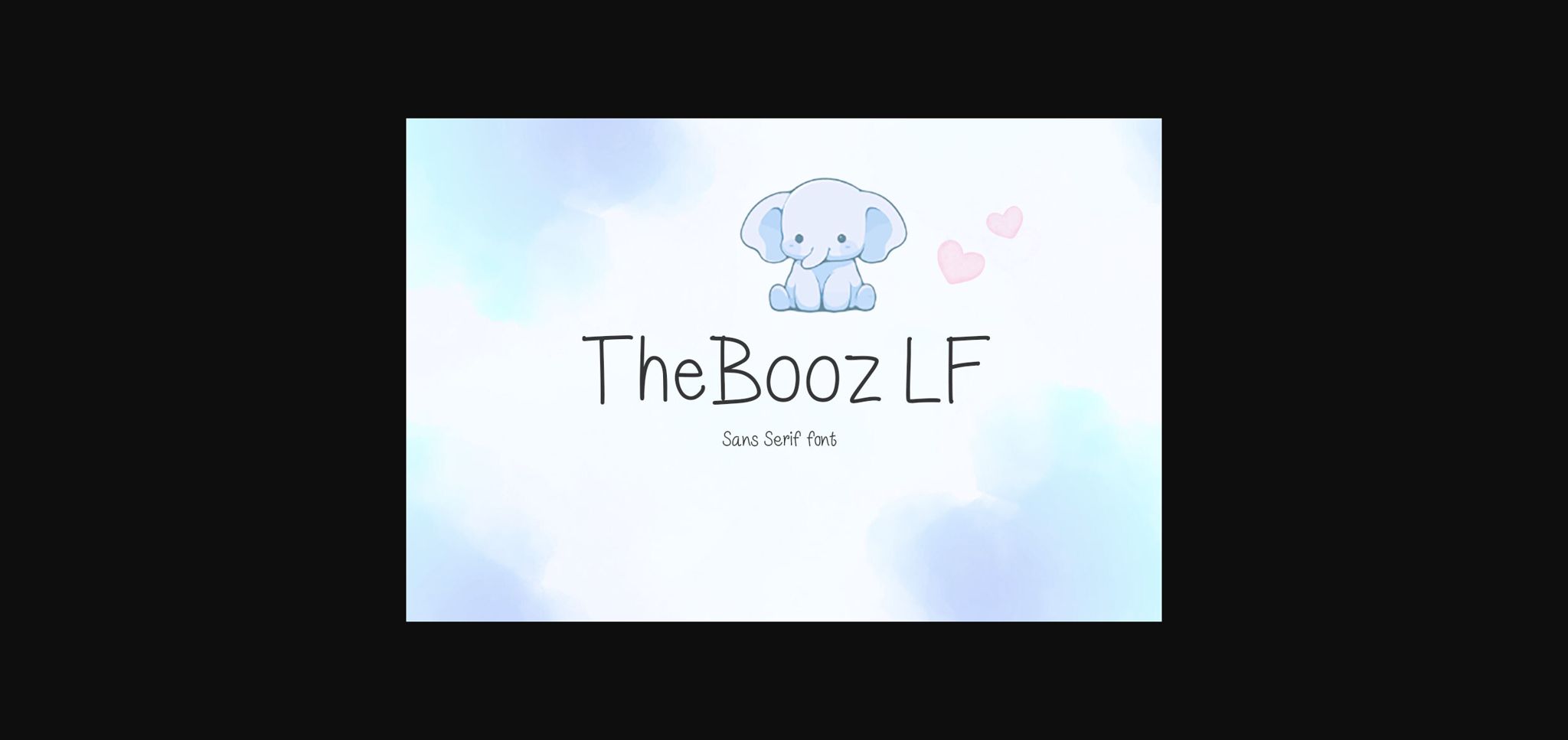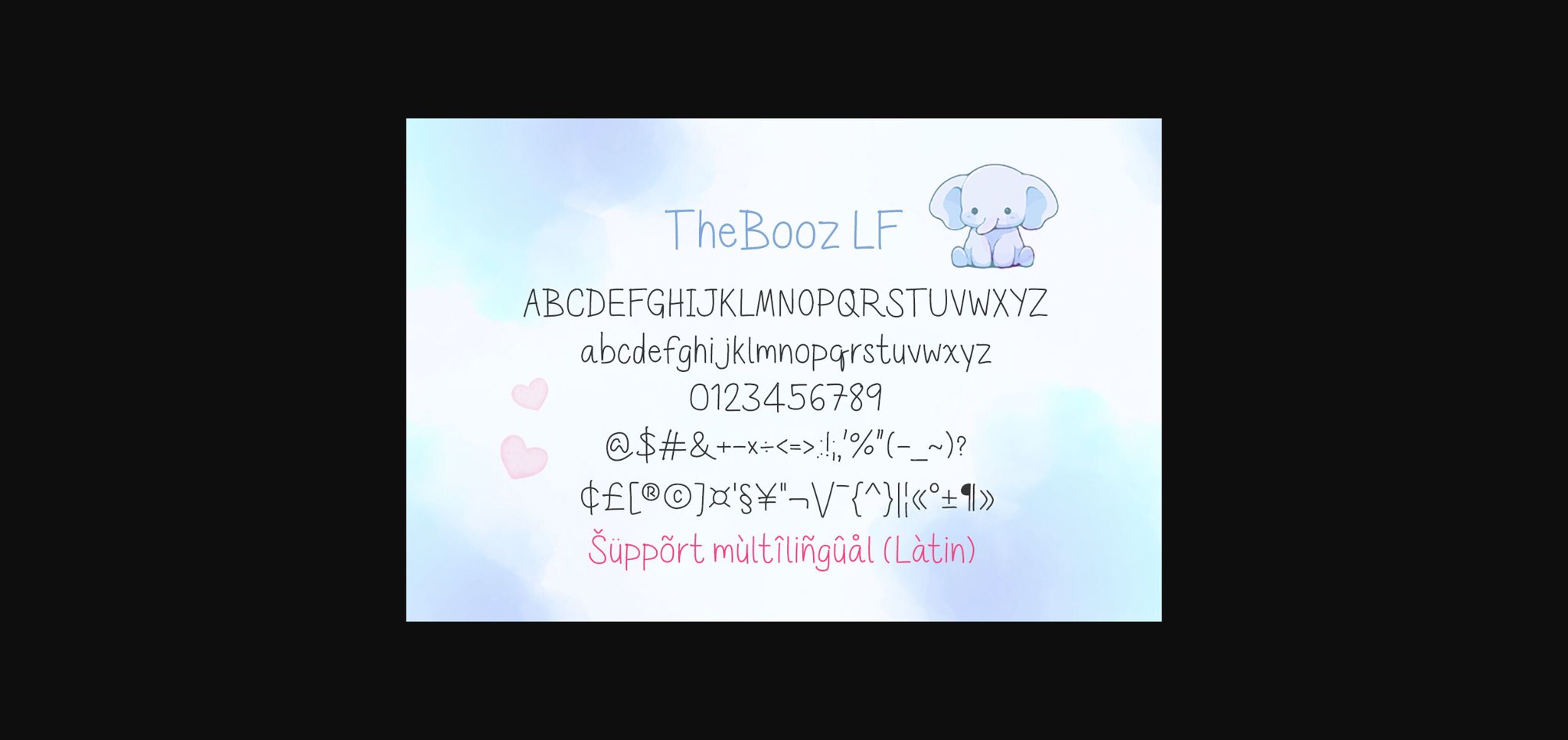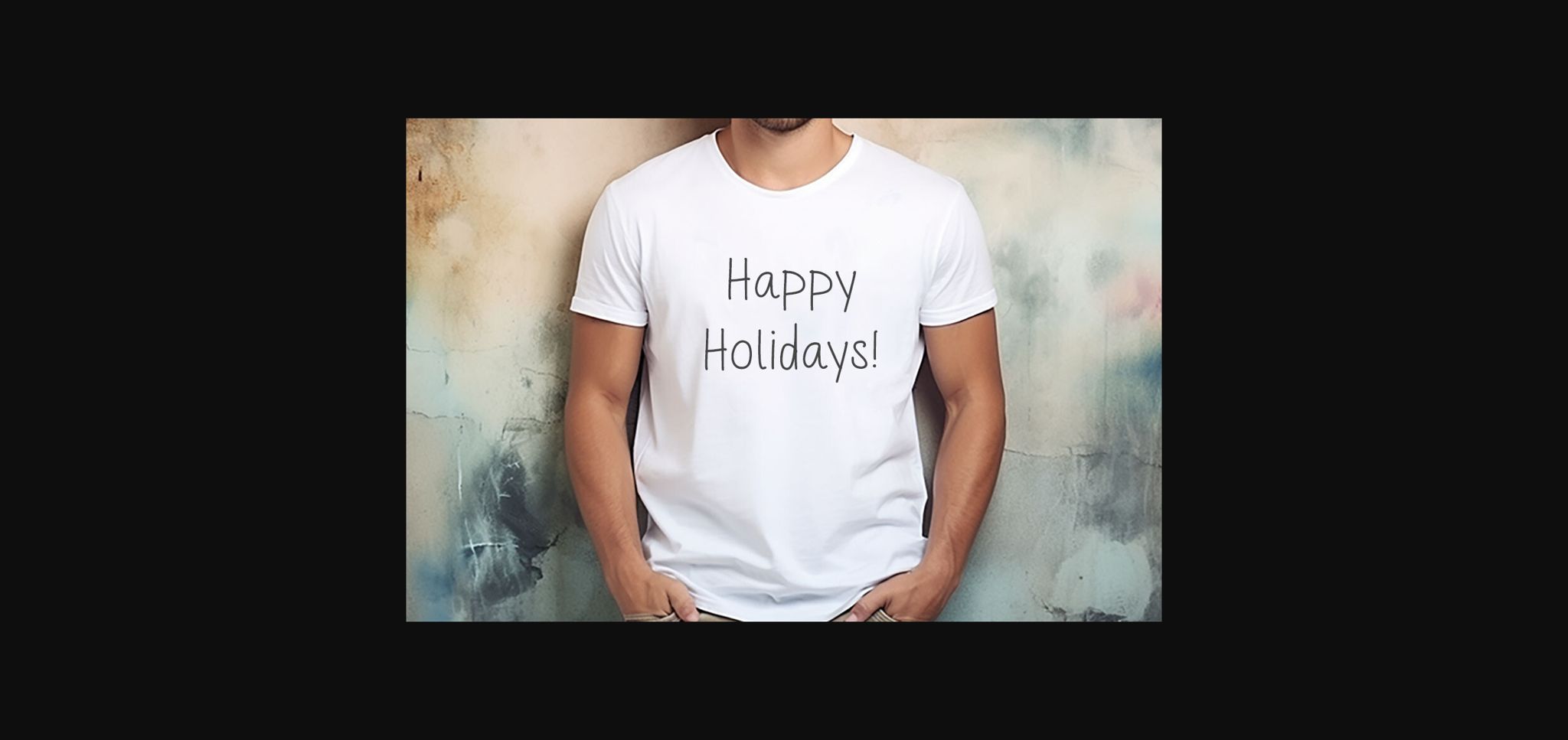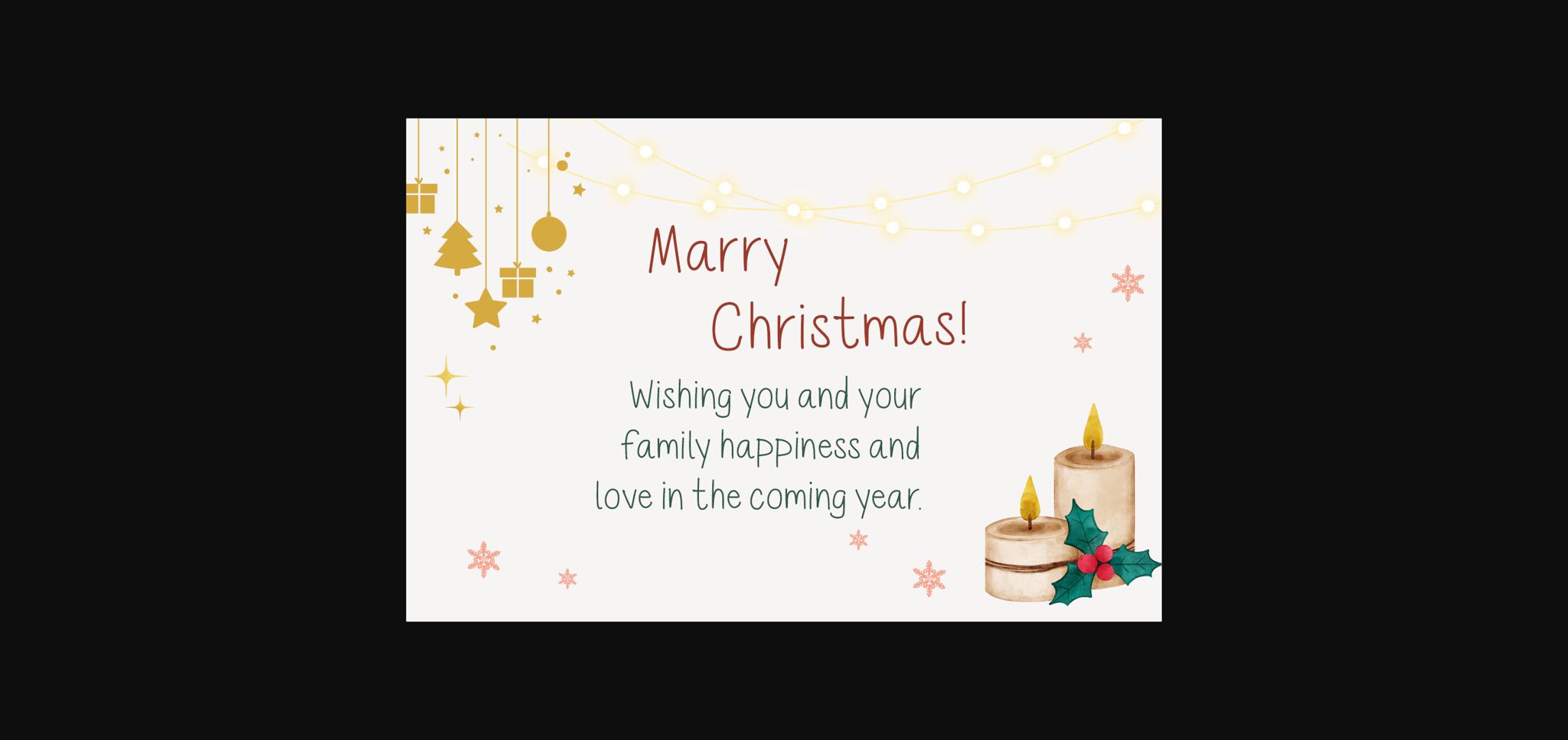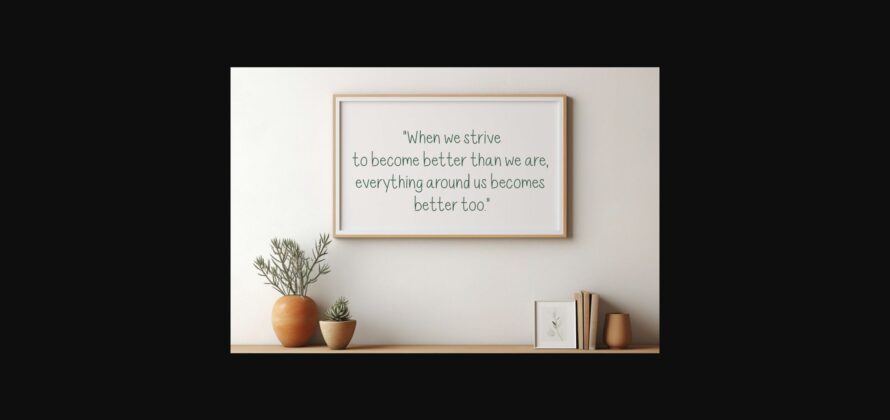
Thebooz Lf Font
About Thebooz Lf Font
TheBooz LF is a cute, minimal and neat sans serif font. It would be awesome to your fun projects or diary, planner, children themed designs, wedding invitations, thank you cards, quotes, greeting cards, logos, posters, blogsand creative many more!